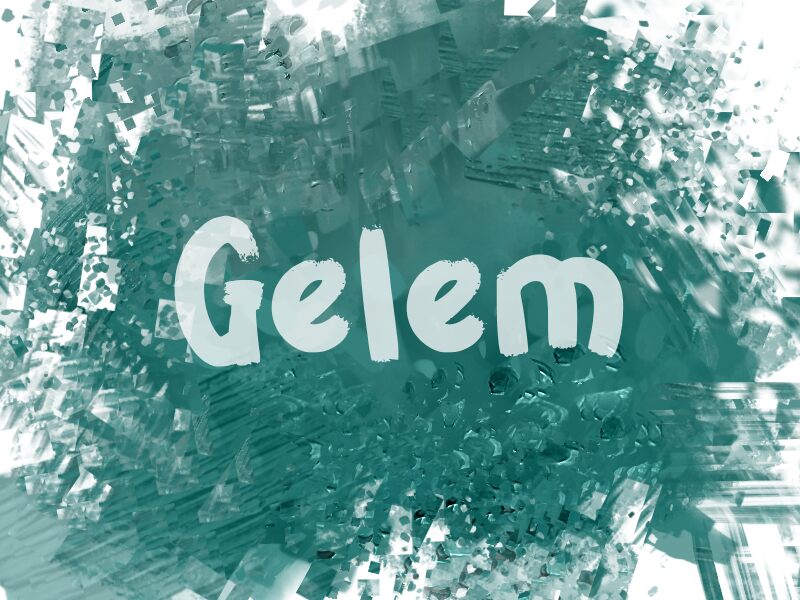
Gelem
The Gelem font exudes a raw, energetic essence, inviting the viewer to experience its bold, expressive strokes. Crafted with a distinct brush-like quality, this font emanates a sense of spontaneity and artistry, making it a captivating choice for designs seeking to convey a dynamic, handcrafted aesthetic.
Gelem's versatility shines through, lending itself seamlessly to a wide range of applications, from impactful headlines and logo designs to eye-catching packaging and editorial layouts. Its bold, confident presence ensures that any message or brand identity it supports will command attention and leave a lasting impression on the audience.